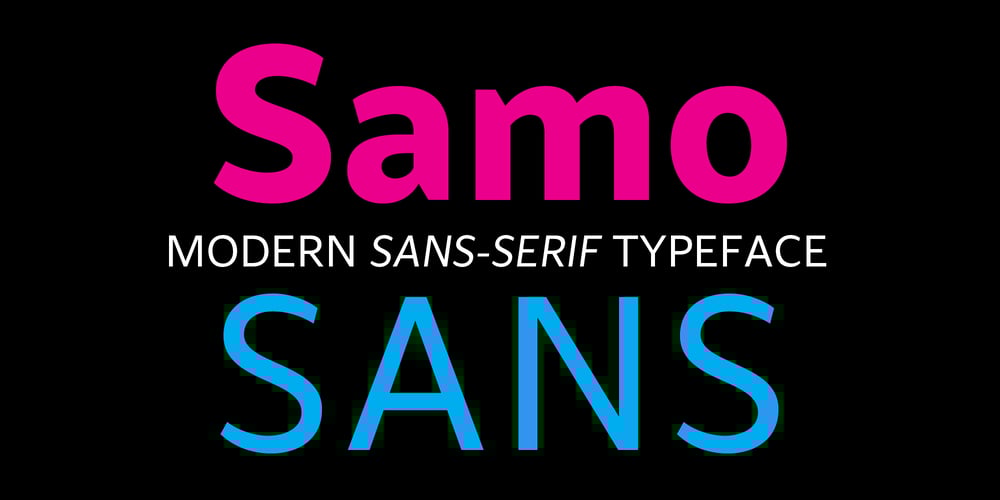
Samo Sans
Samo Sans font
Samo Sans Font Family was designed by Samuel Čarnoký and published by CarnokyType. Samo Sans contains 4 styles and family package options. Samo Sans is a modern sans-serif typeface with low contrast strokes and is balanced between technical shapes and dynamic feeling. The primary type family is consisted of complete set of Latin glyphs for lower and upper case. It also supports diacritics of all European languages including lining numerals, standard ligatures and other characters sufficient for regular typesetting. Characteristic features are lower spurs (a, b, d, u), and upper spurs (m, n, p, q, r) with distinctive wedge-shaped cuts. These parts are complemented by homogeneously designed diacritics, which is not disturbing and harmonizing with the whole unit. Another very strong feature of the type drawing are lower terminals of the round glyphs, which are finished by moderate narrowing. The type has got decreased caps height, also decreased numerals and optimal x-height, which makes it suitable for more extensive text typesetting. It can be effectively applied in corporate identities or in display typesetting. The narrowness of the basic set of Samo Sans typeface is supplemented by extended type family Samo Sans Pro.